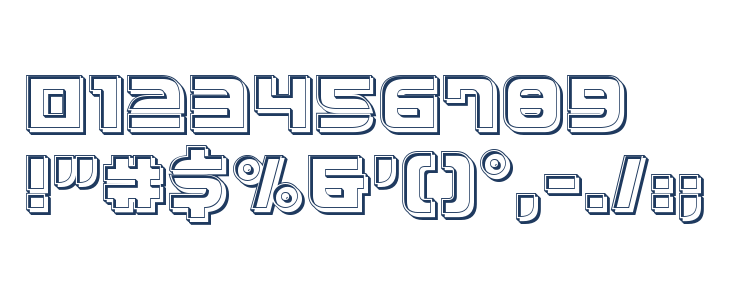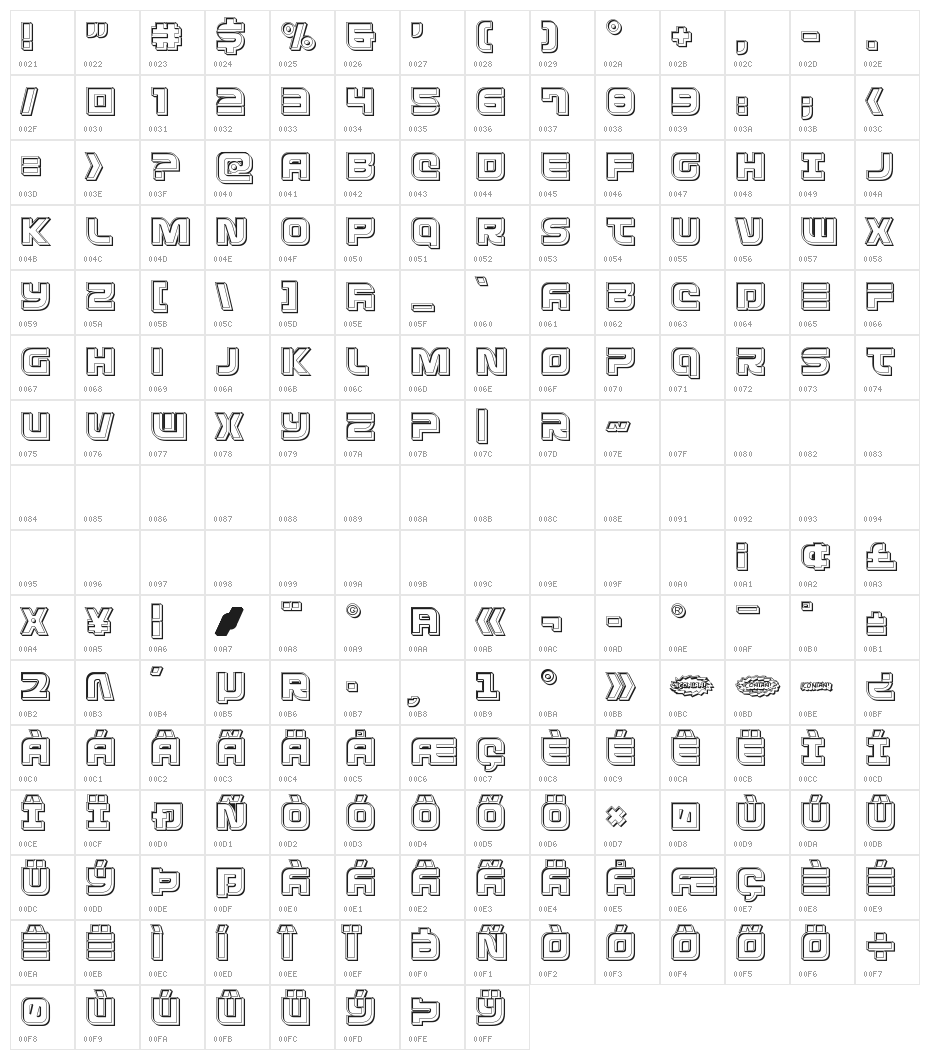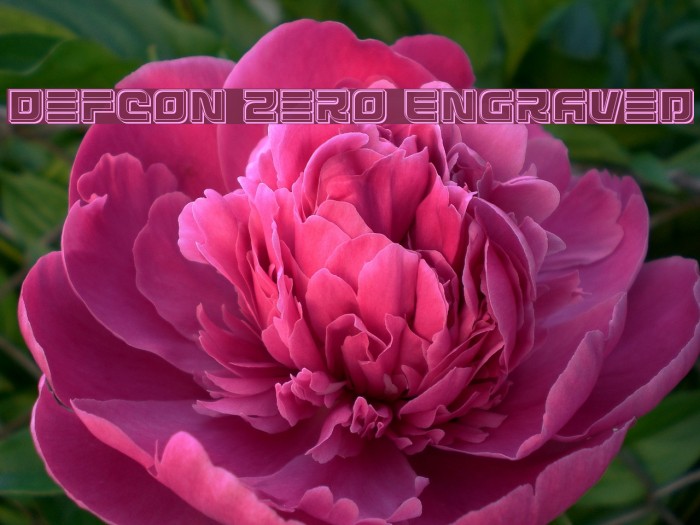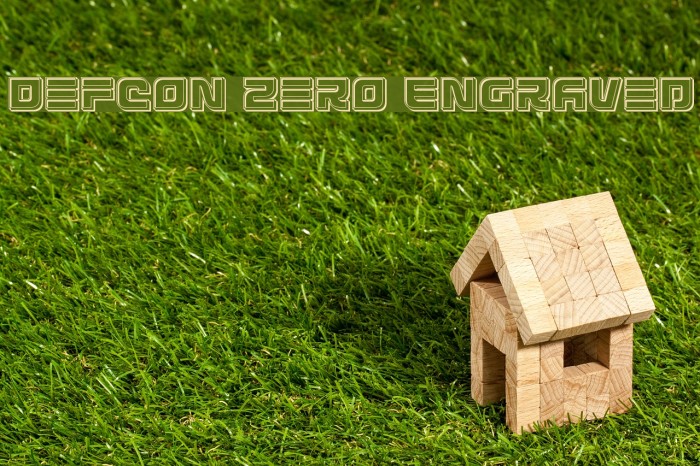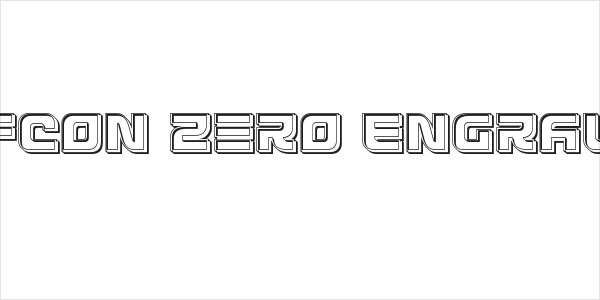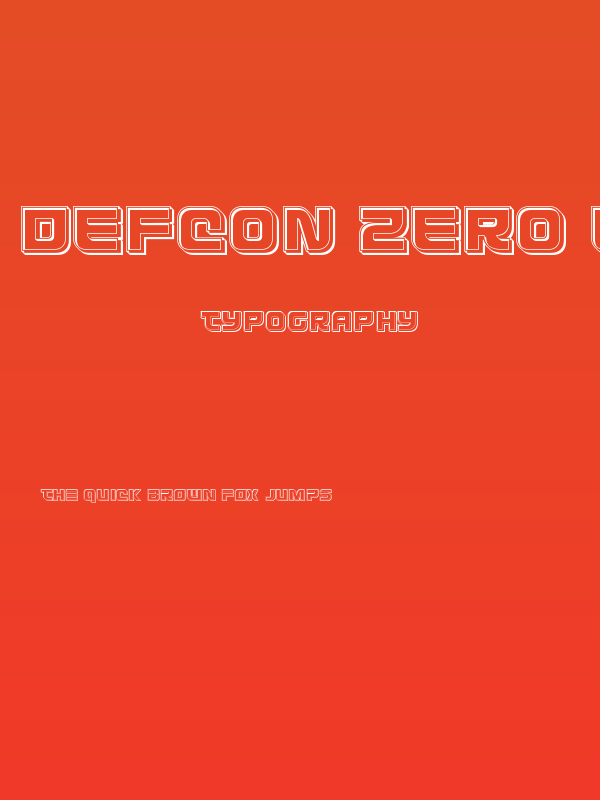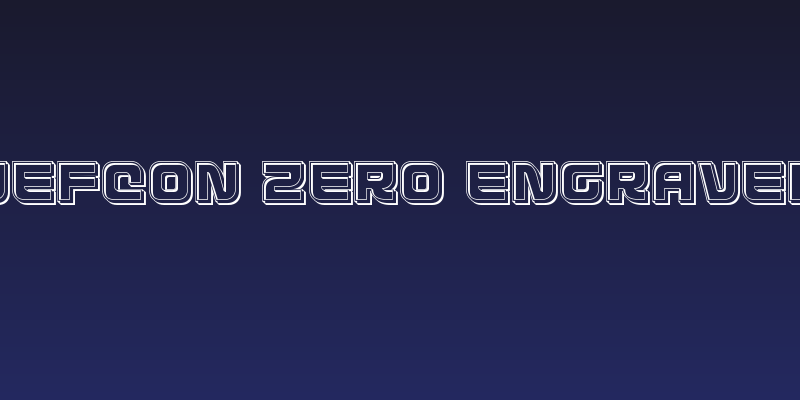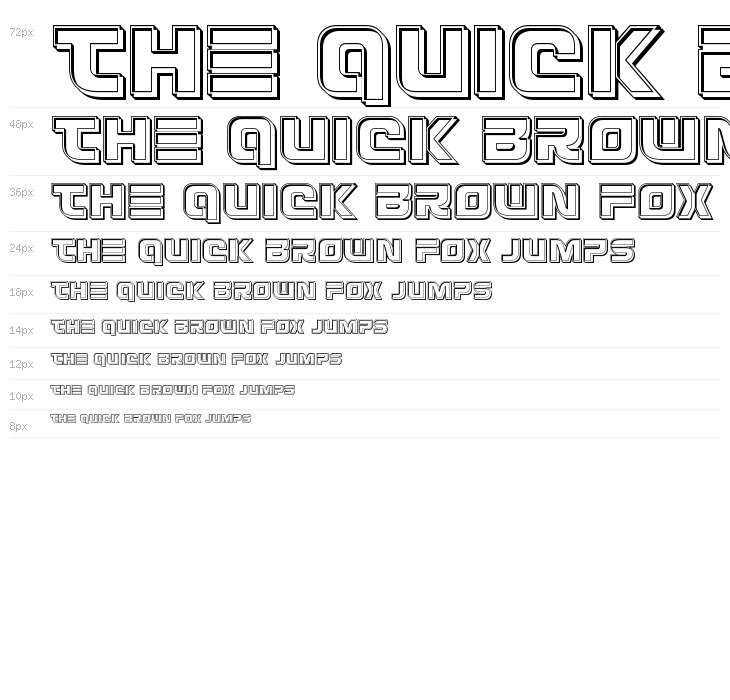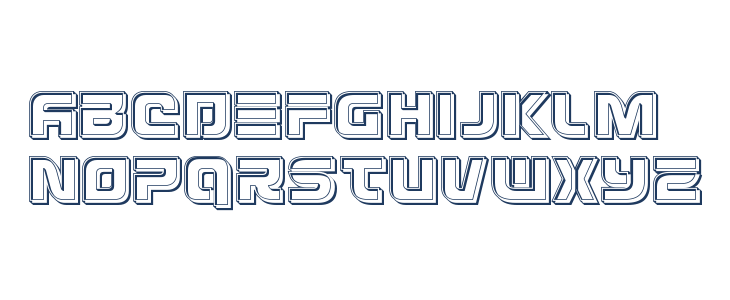
Defcon Zero Engraved Font
Defcon Zero Engraved Description
This font features a bold, futuristic design with a distinct engraved appearance. The characters are outlined with a double line, creating a three-dimensional effect that adds depth and intrigue. The geometric shapes and sharp angles give it a modern and tech-inspired look, making it ideal for projects that require a strong visual impact. The uppercase and lowercase letters maintain a consistent style, with uniform stroke widths that enhance readability. The numerals and special characters are designed to match the overall aesthetic, ensuring a cohesive appearance across all text elements.
| Overall Style | Futuristic, Modern |
| Proposed Projects | Ideal for technology branding, video game titles, sci-fi movie posters, and digital artwork. |